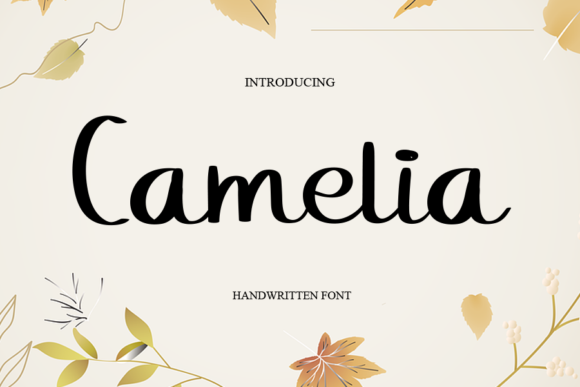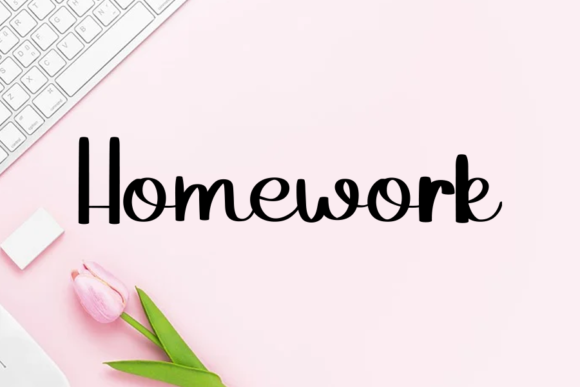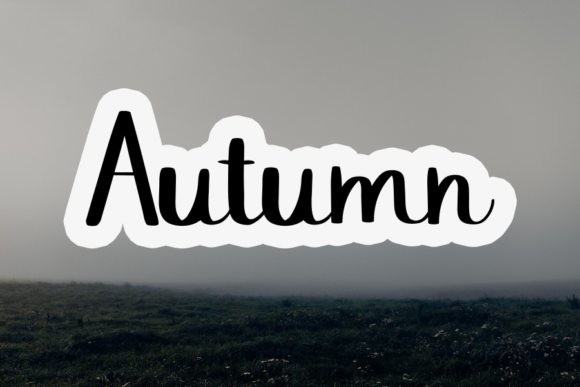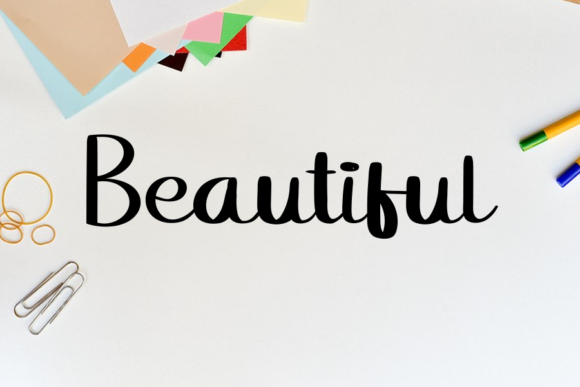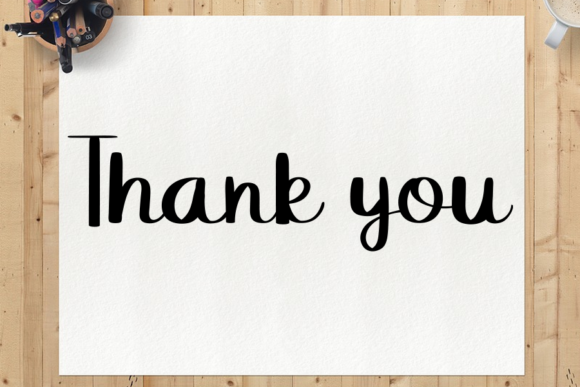
Camelia Font
About Camelia Font
Camelia is a lovely script font featuring charming, playful characters that seem to dance along the baseline. Add this font to your most creative ideas, and notice how it makes them stand out!